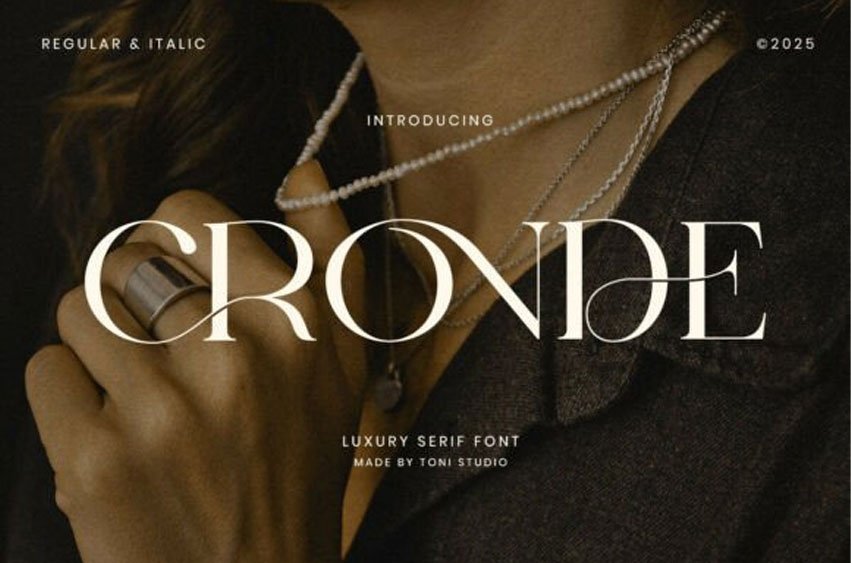
Cronde Font
Cronde Font is a luxury serif font with a modern, minimalist aesthetic and artistic ligature design. It includes regular and italic styles, offering flexibility across editorial and branding use. Its tall vertical proportions, refined contrast, and subtle curves create an elegant typographic voice suited for premium layouts.
Each glyph features graceful swashes integrated into selected letters, delivering a unique signature appeal. Cronde is ideal for branding, jewelry packaging, and high-end fashion magazines. Its smooth balance between classic serifs and modern forms makes it highly readable and distinctive in both print and digital compositions.
CRONDE is perfect for high-end branding, editorial layouts, fashion logos and packaging, magazines, beauty products, wedding invitations, product packaging, and social media.
Bring elegance and confidence to your designs with CRONDE, a modern serif font designed for timeless luxury.